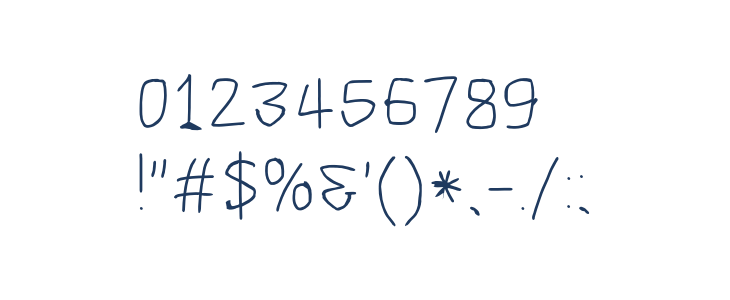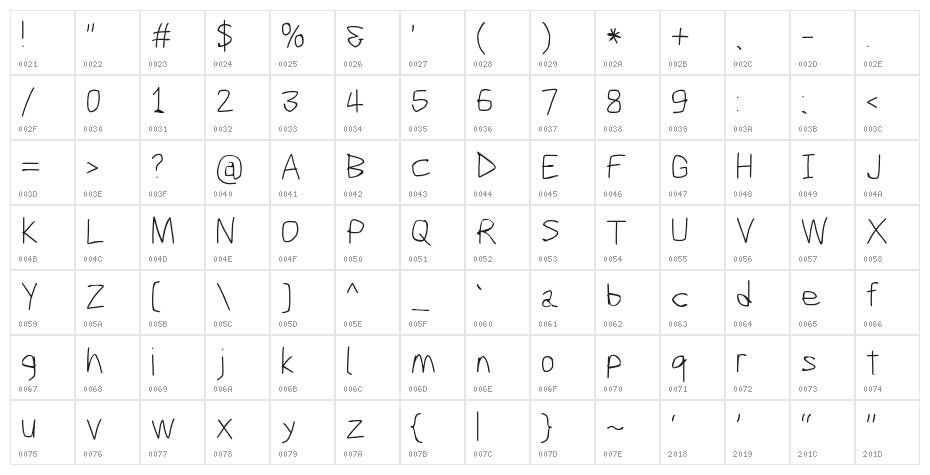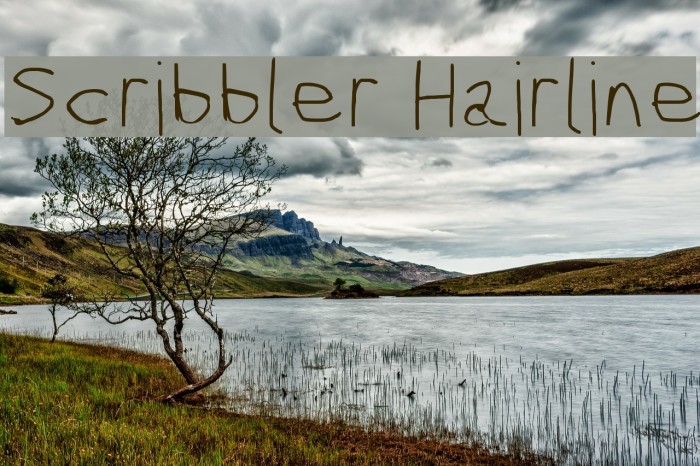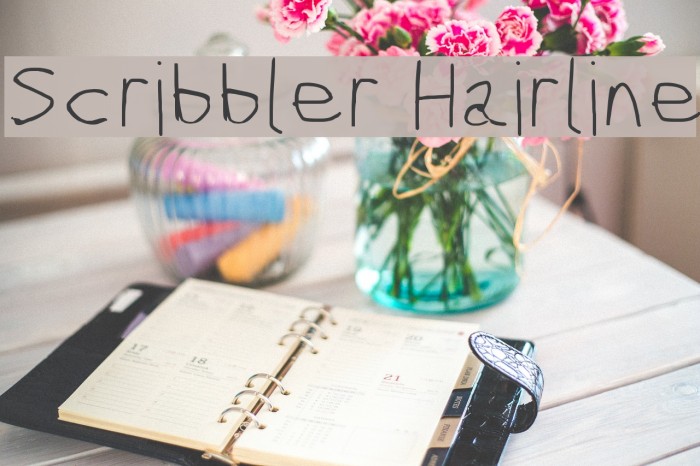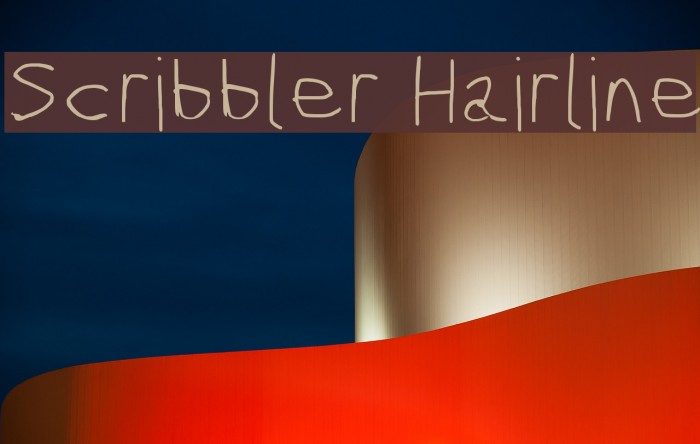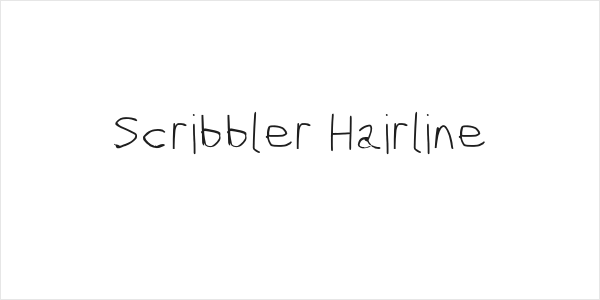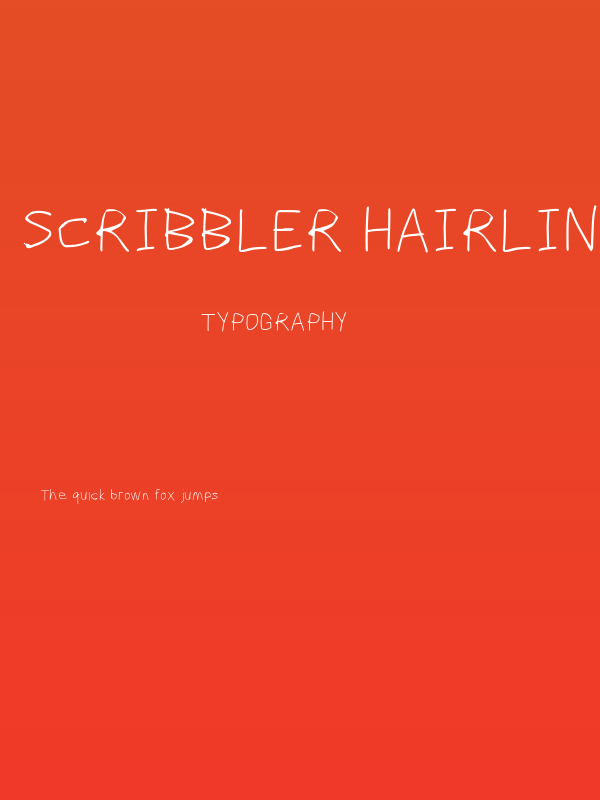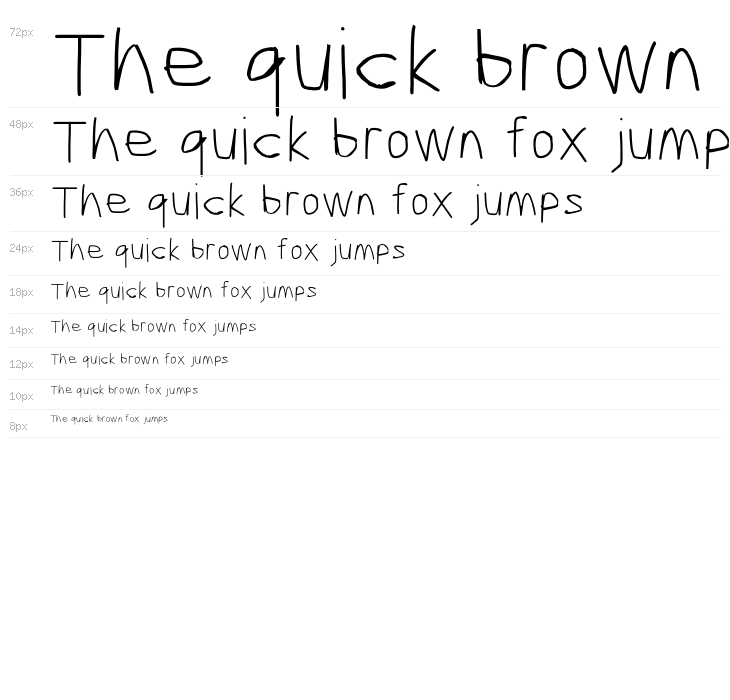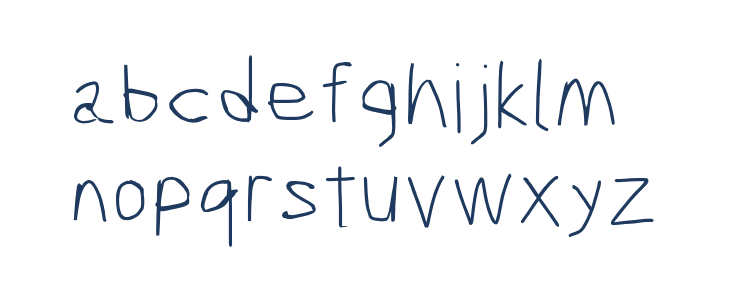
Scribbler Hairline Font
Scribbler Hairline Description
This font features a playful and informal handwritten style, characterized by its thin, hairline strokes that give it a light and airy appearance. The letters are slightly irregular, adding to the casual and whimsical feel. The uppercase and lowercase letters maintain a consistent style, with rounded edges and a slight tilt, enhancing the handwritten aesthetic. Numbers and special characters follow the same design principles, ensuring a cohesive look across all glyphs. This font is ideal for projects that require a personal touch or a relaxed vibe.
| Use Case | Logos, Headlines, Informal Text |
| Proposed Projects | Ideal for greeting cards, personal blogs, children's books, and informal invitations. |